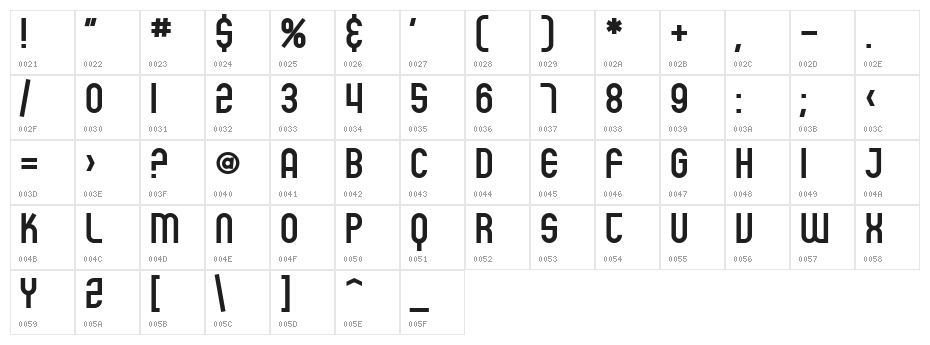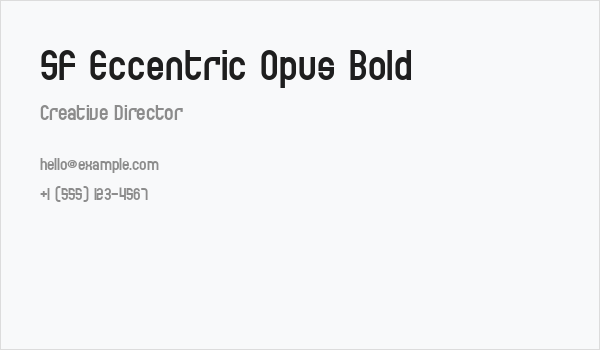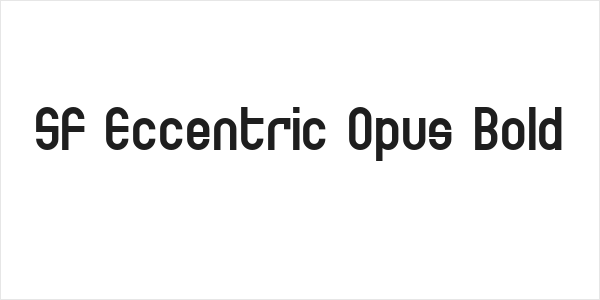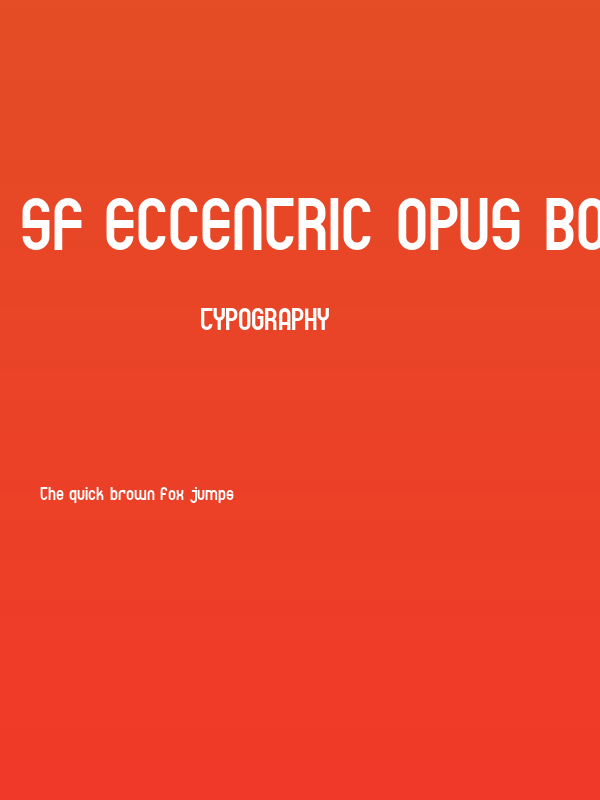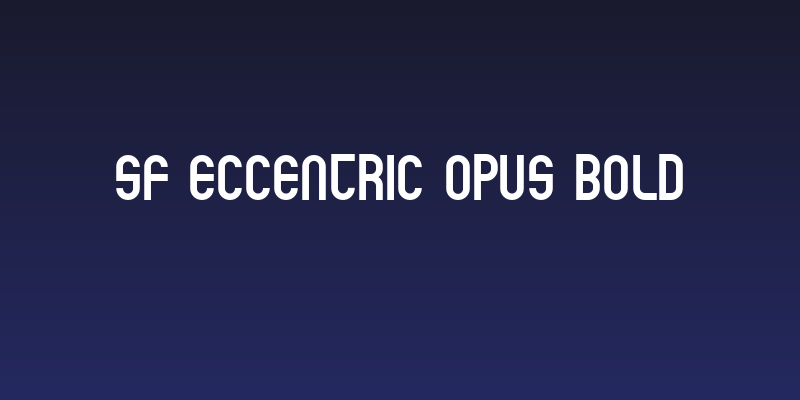
SF Eccentric Opus Bold Font
SF Eccentric Opus Bold Description
This font features a bold and geometric design with a modern flair. The characters are constructed with clean lines and rounded edges, giving it a unique and approachable appearance. The uppercase letters are tall and uniform, while the lowercase letters maintain a consistent style with slight variations in height and width. The numerals are distinct and easy to read, complementing the overall design. Special characters are included, each crafted to match the font's cohesive aesthetic. This font is ideal for making a strong visual impact while remaining legible and stylish.
| Proposed Projects | Ideal for branding, advertising, posters, and digital media where a strong, modern look is desired. |